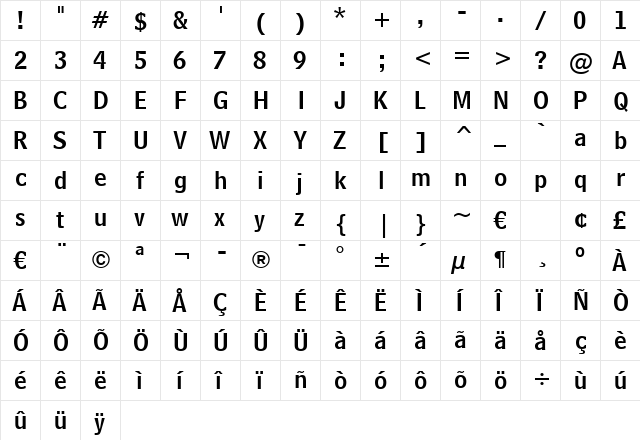
BellCent NamNum BT Name and Number
Design Context for BellCent NamNum BT Typeface
BellCent NamNum BT offers clean, dependable letterforms without strong stylistic allegiance, making it a practical choice for designers who need flexibility.